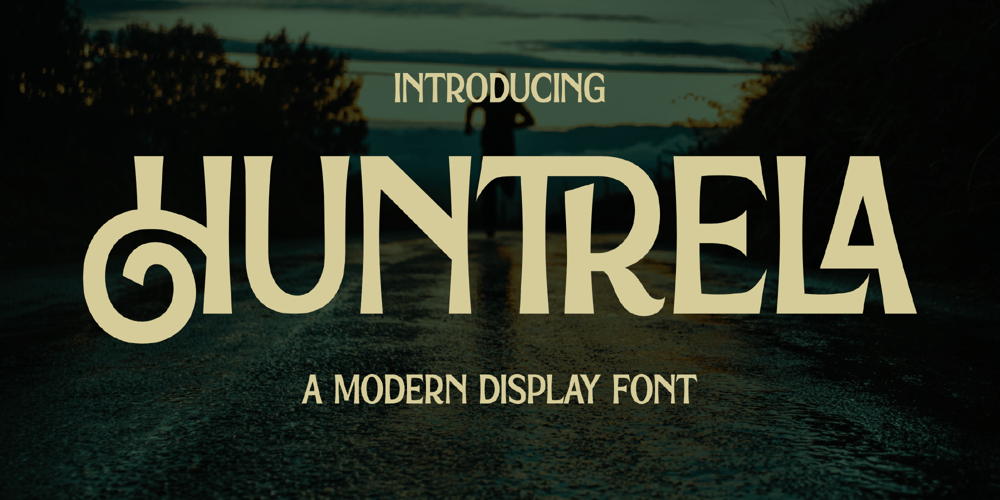
Huntrela
Huntrela font
Huntrela Font Family was designed by Heru Utama Putra and published by Letterena Studios. Huntrela contains 2 styles and family package options. Huntrela is a modern and classic serif typeface that has its own unique style & modern look. This typeface is perfect for an elegant & luxurious logo, book or movie title design, fashion brand, magazine, clothes, lettering, quotes, and so much more.